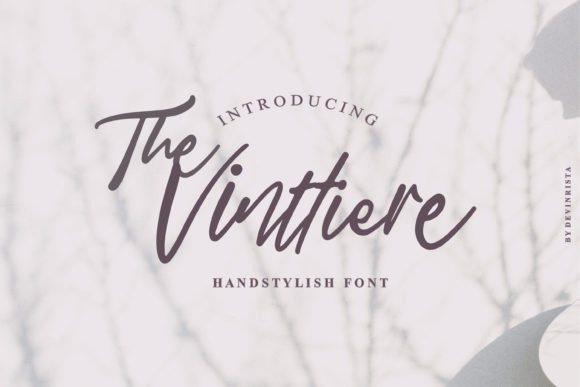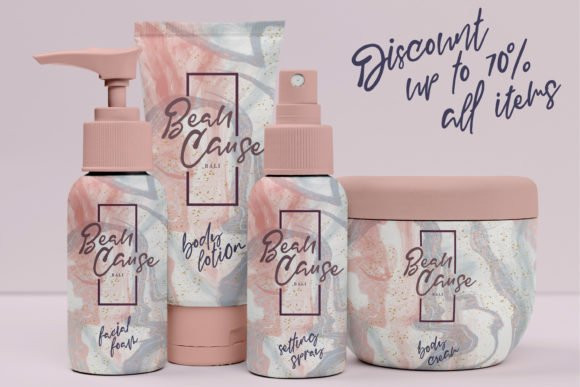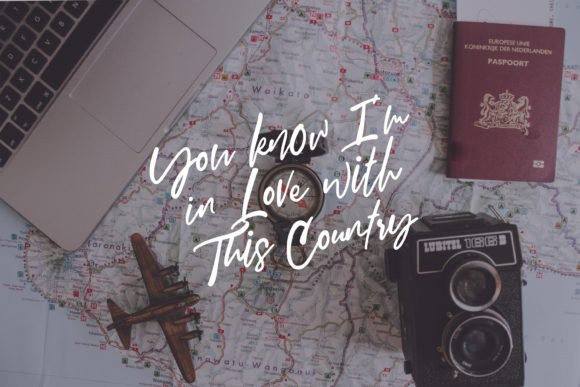
The Vinttiere Font
The Vinttiere is a modern and classy handwritten font. It has a trendy style and it will be a tremendous hit for each of your branding, product packaging, invitations, quotes, t-shirts, label, poster, logos or anything else that you wish to design.